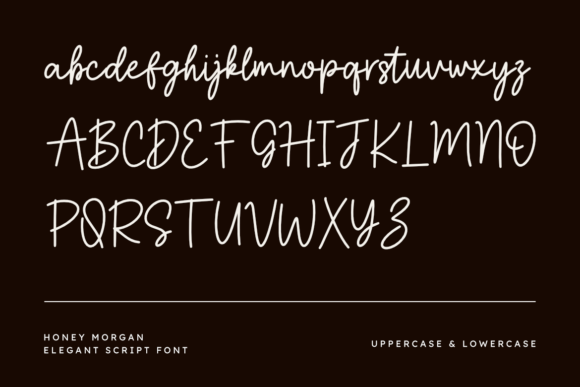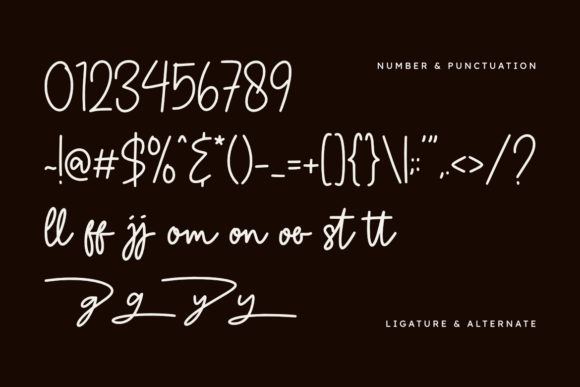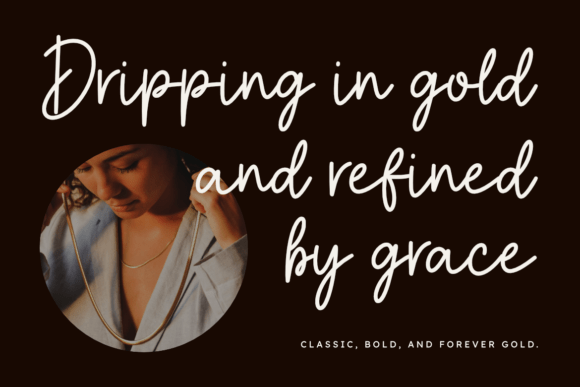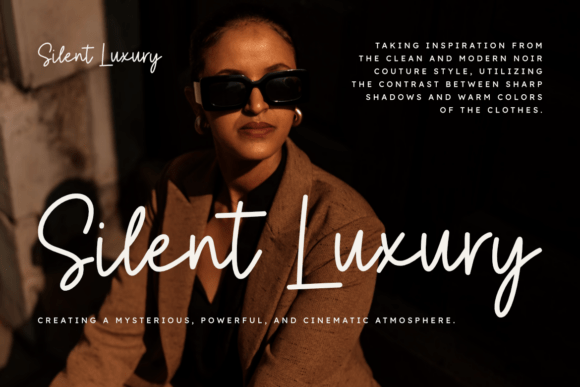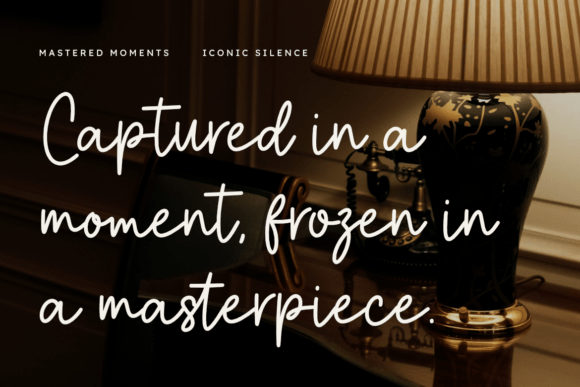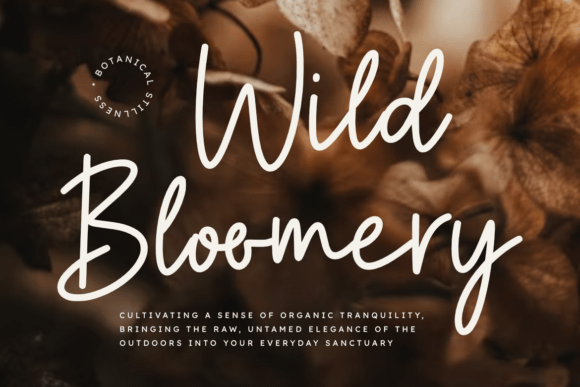
The Perfect Script: Elevate Your Designs with the Honey Morgan Font
Have you ever stared at a blank page, searching for the perfect font to bring your creative vision to life? That’s exactly where I was when I stumbled upon the Honey Morgan Font – a game-changer in the world of typography. Its bold and elegant script design has been a staple in my design arsenal ever since.
Honey Morgan Font is designed for making a statement, with its tall structure and natural flow perfect for strong headlines, modern posters, and high-impact advertising. Its clean and confident design gives your visuals a striking and professional look that’s hard to ignore. As a designer, you understand the importance of choosing the right font to elevate your work and make it stand out in a crowded market.
With the Honey Morgan Font, you’ll be able to add a touch of sophistication and elegance to your designs, making it an invaluable addition to your toolkit.
Honey Morgan Font Key Features
- Unique Characteristics: This font features a unique blend of modern and vintage elements, with elegant lines, subtle flair, and a touch of whimsy.
- Kerning and Ligatures: The font includes advanced kerning and ligature features, ensuring smooth and professional-looking text output.
Honey Morgan Font Review
As a designer, I was excited to try out the Honey Morgan font, and overall, I was not disappointed. ✨ One of the things that stands out to me is the font’s unique, vintage feel. The intricate details and ornate flourishes give it a high-end, luxurious look that’s perfect for luxury brands or high-end marketing materials.
Another thing I like about Honey Morgan is its versatility. It works well in both digital and print applications, making it a great choice for designers who need a font that can adapt to different mediums. ✨ The font also has a wide range of weights and styles, making it easy to find the perfect look for your project.
What Doesn’t Work So Well
- ⚠️ The font can be a bit too ornate for some applications. While it’s great for luxury brands, it may be too much for simpler designs.
- ⚠️ The font’s ligatures can be a bit tricky to work with, especially for designers who are new to working with ornate fonts.
Overall, I think the Honey Morgan font is a great choice for designers who need a high-end, luxurious font for their projects. While it has some limitations, its unique look and versatility make it a valuable addition to any designer’s toolkit.
Tips for Getting the Most Out of the Honey Morgan Font
For optimal results, use the Honey Morgan font in combination with distressed textures and watercolor effects. This will create a unique and eye-catching design.
The Honey Morgan font is ideal for:
– Handwritten invitations and cards
– Artistic quotes and posters
– Watercolor-inspired designs and illustrations